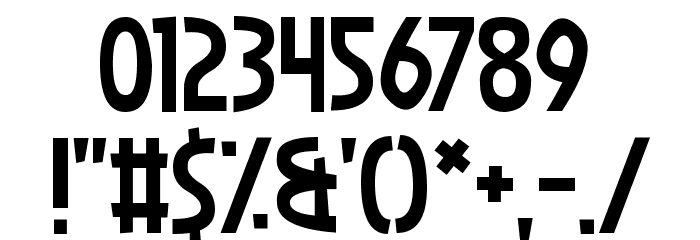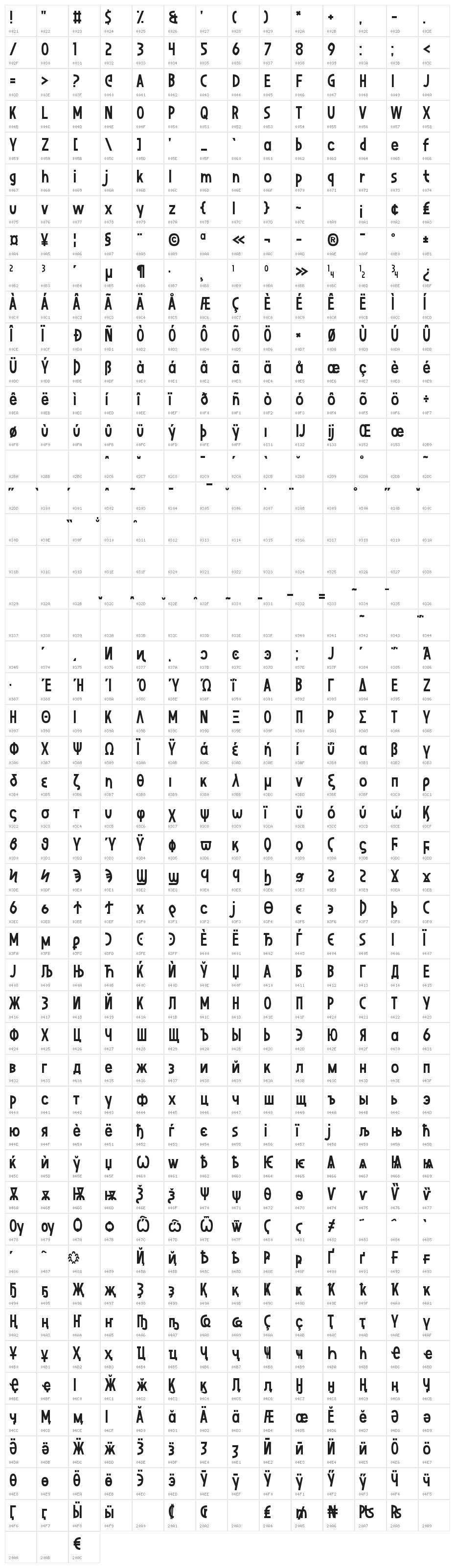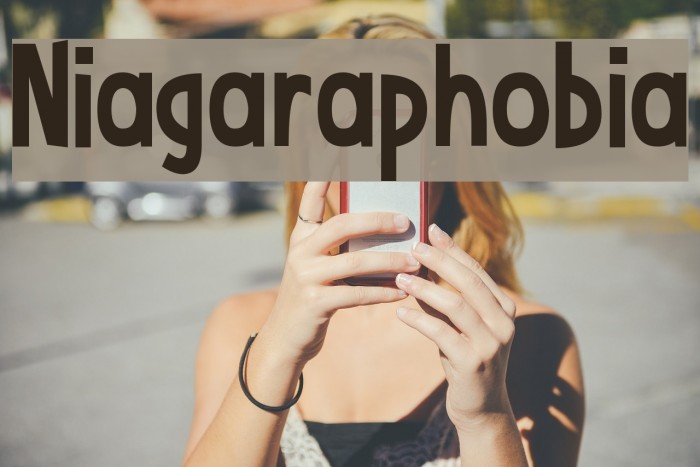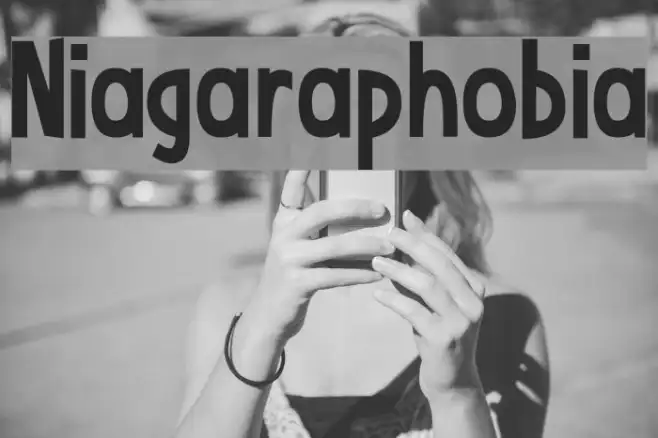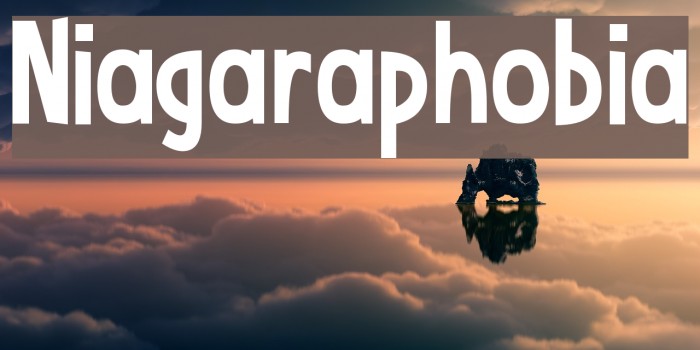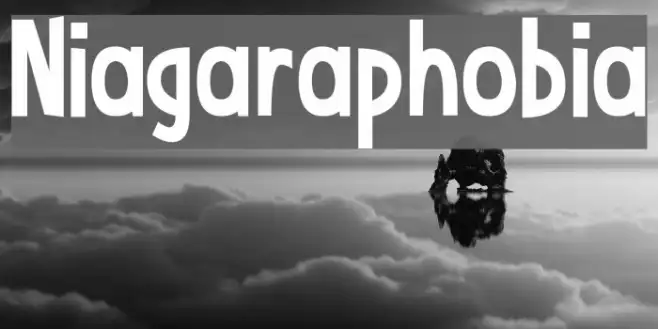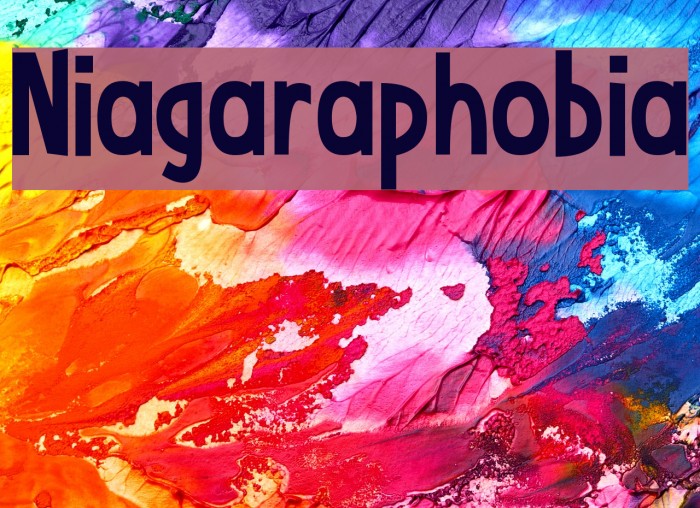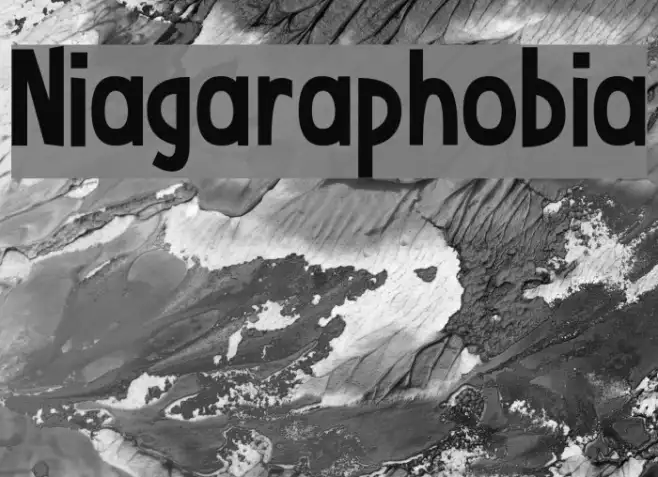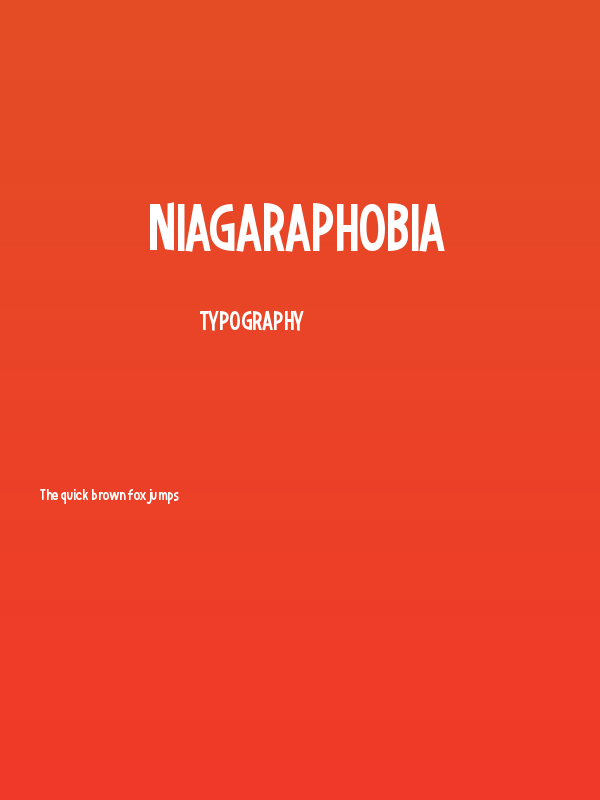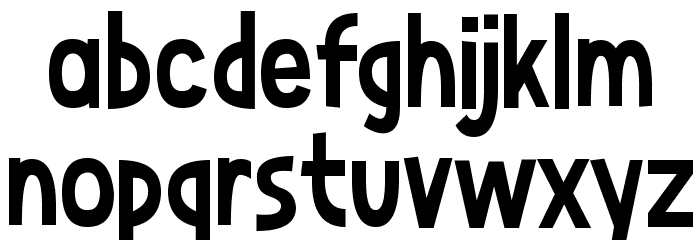
Niagaraphobia Font
Niagaraphobia Description
This font features bold, geometric letterforms with a strong presence. The uppercase letters are tall and slightly condensed, giving a modern and assertive look. The lowercase letters maintain a consistent style, with rounded edges that soften the overall appearance. Numbers are clear and legible, matching the boldness of the alphabet. Special characters are well-integrated, maintaining the font's cohesive style. The font's design is suitable for impactful headlines and attention-grabbing text, offering a contemporary feel with a hint of playfulness.
| Proposed Projects | Ideal for branding, advertising, posters, and headlines where a strong visual impact is needed. |